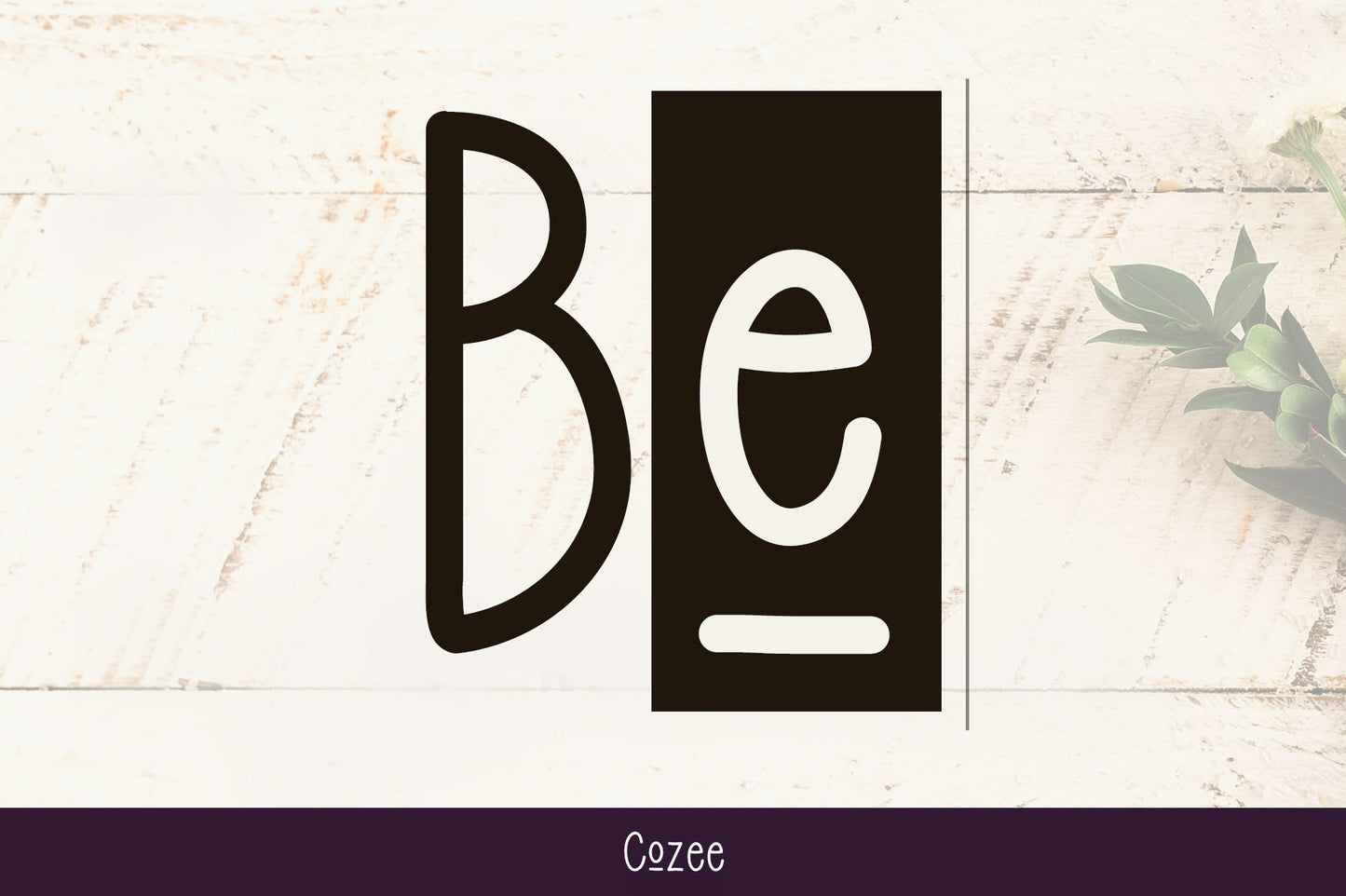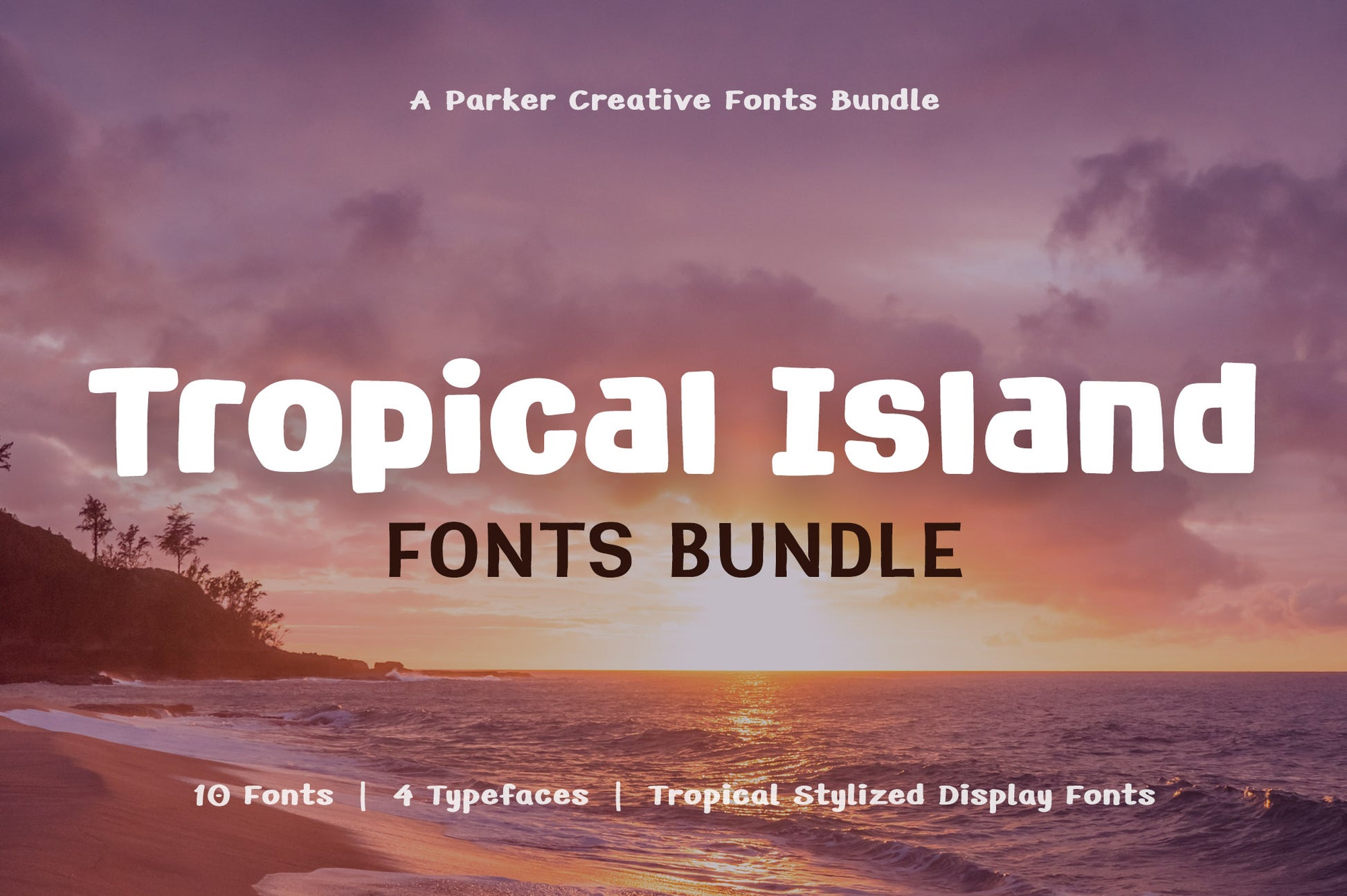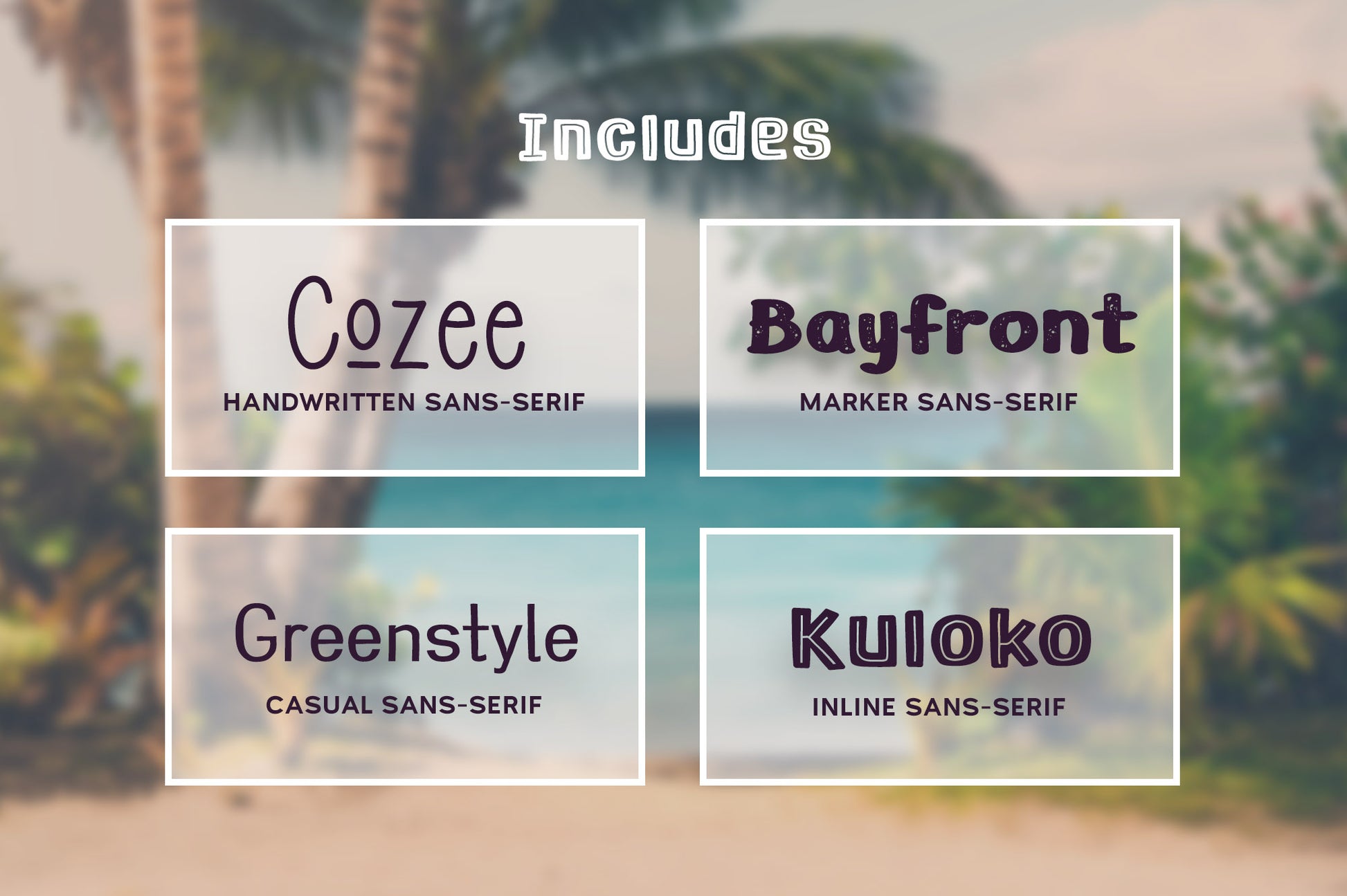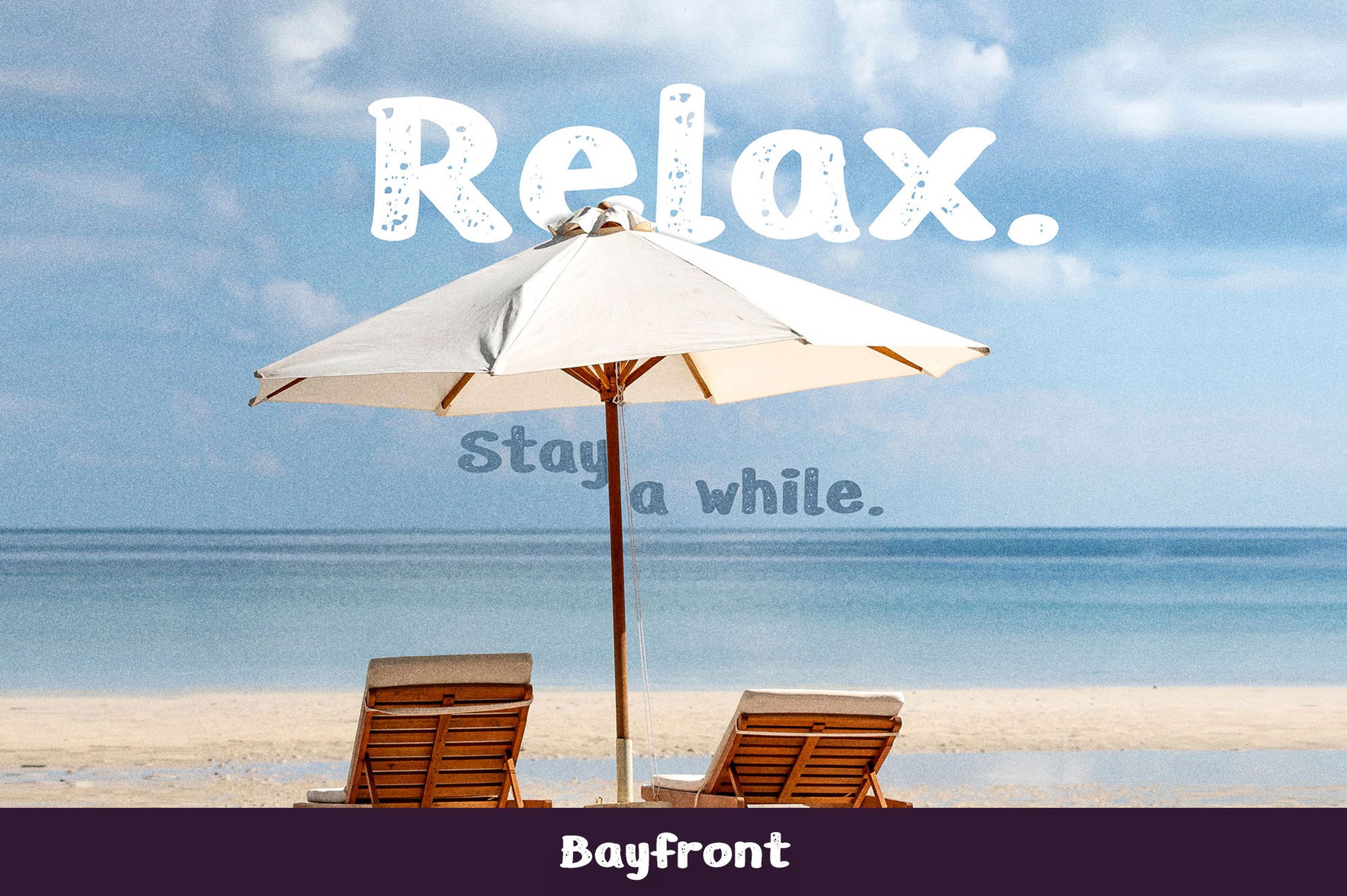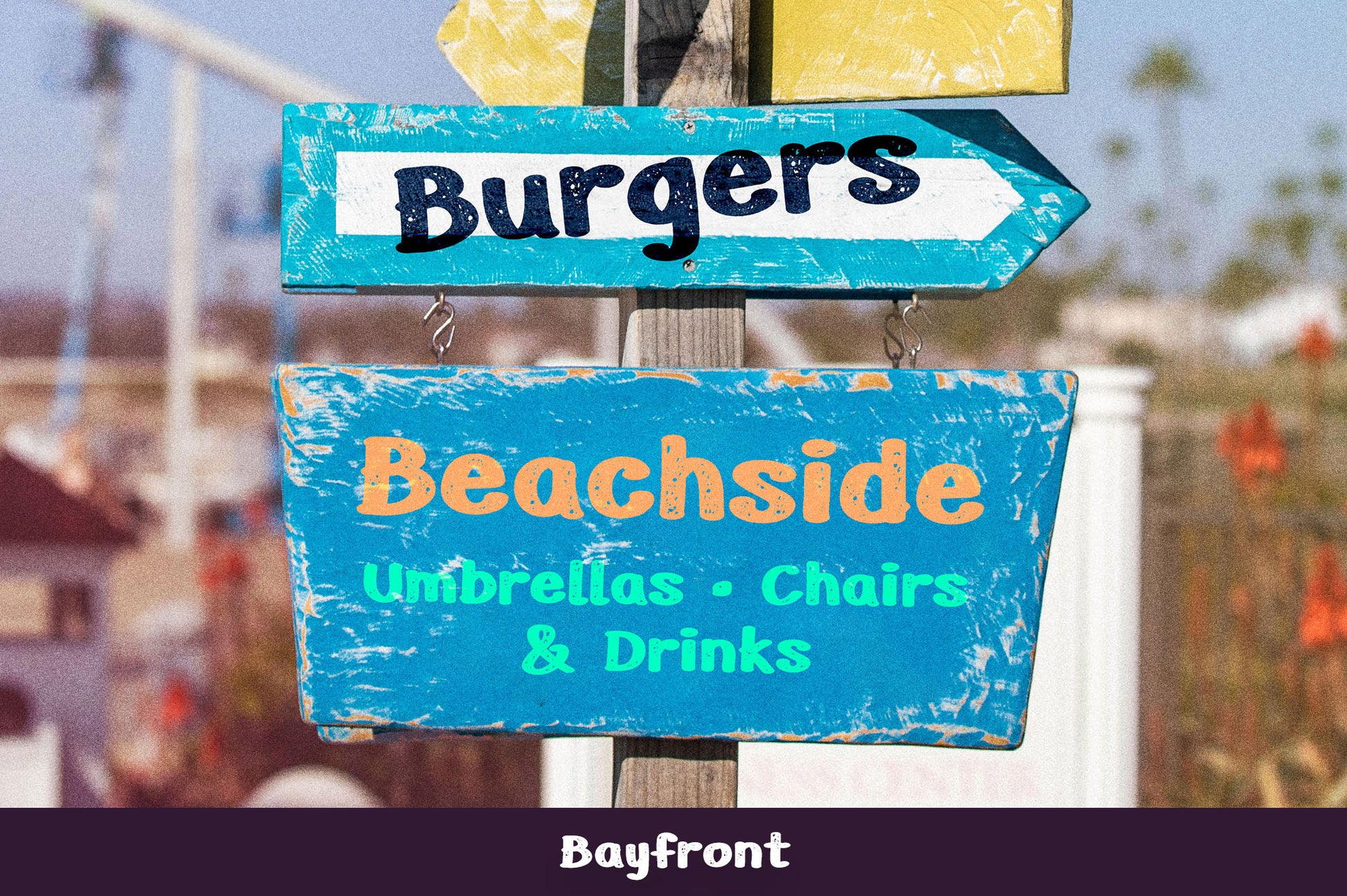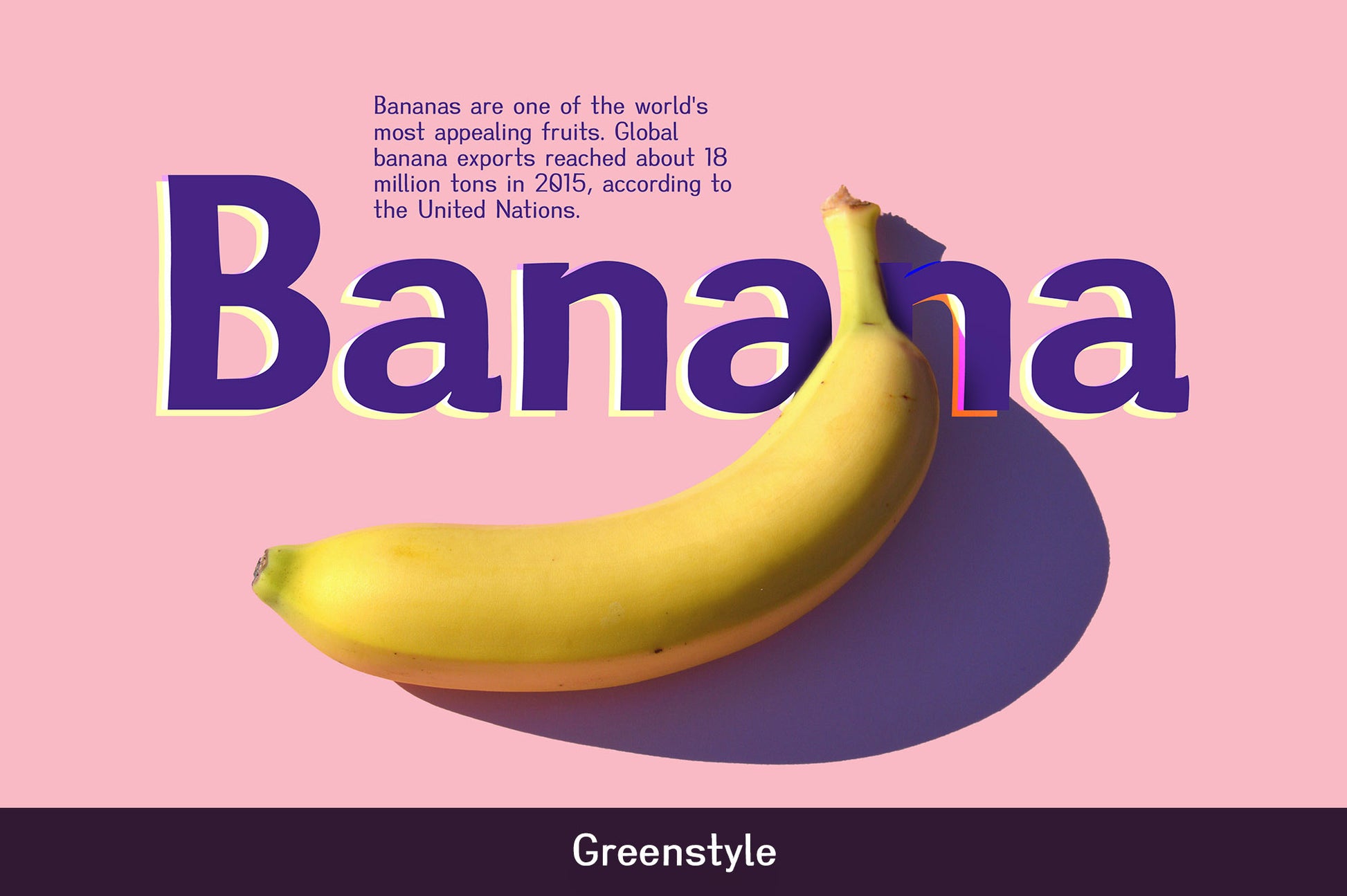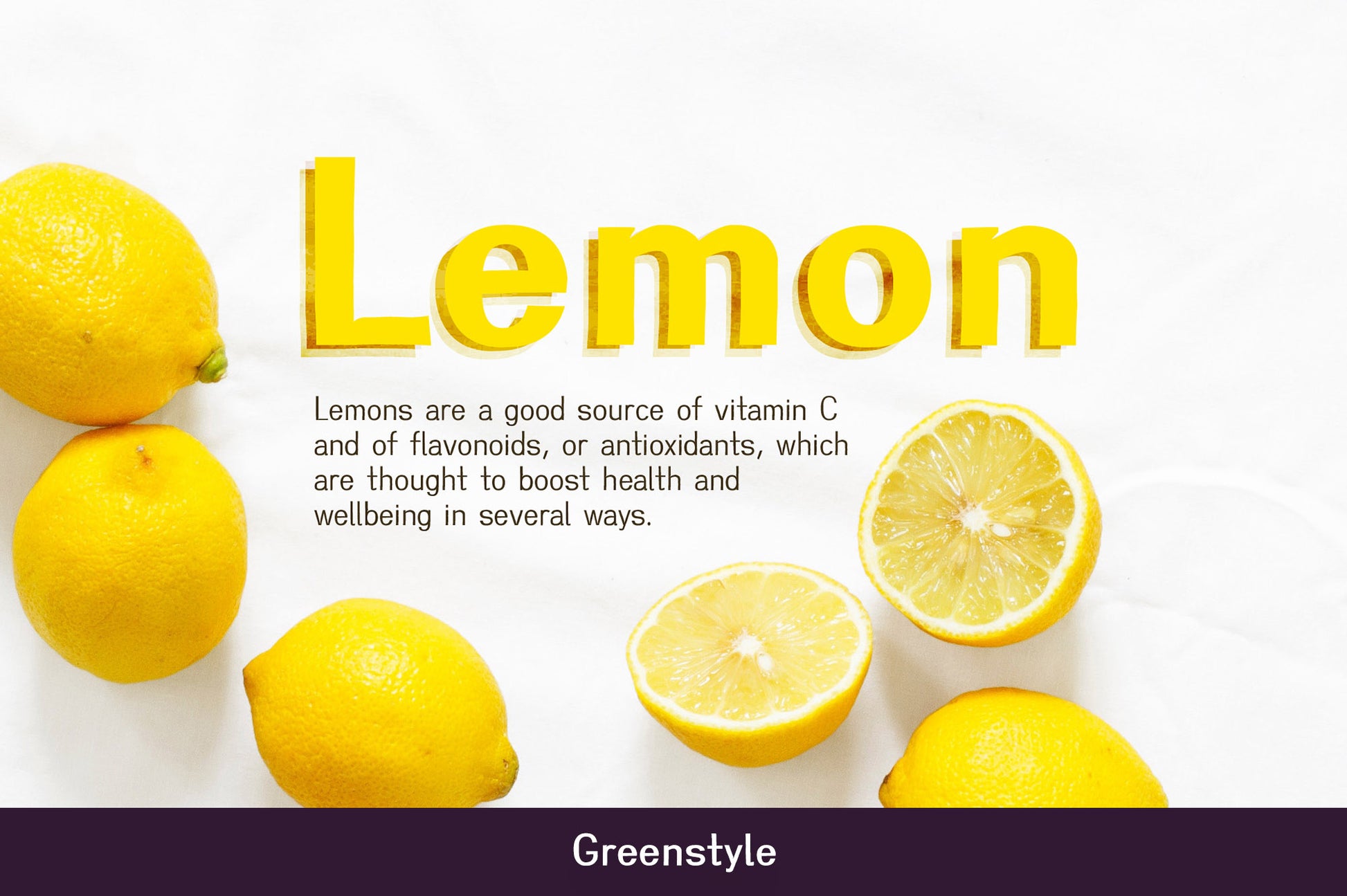
Tropical Island Vibes Font Bundle
Create original tropical themed designs with a variety of island inspired typefaces, exclusively made by Parker Creative.
Cozee - This modern condensed sans serif is fun and skinny - ideal for creating minimalist illustrations, branding projects, and so much more! Add Cozee instantly brings a friendly vibe to your designs.
Bayfront - Designed to emulate the casual look of marker writing, Bayfront also takes to the beach with a special 'sandy' version which features large distressed markings and imperfections.
Greenstyle - This typeface's natural handwriting delivers casual hints of character and rustic style. With 5 font weights, Greenstyle enables a lot of creative versatility in your designs.
Kuloko - Kuloko's funky look is sure to capture attention in headlines on websites, social media graphics, logos, branding and so much more! Kuloko also features a beautiful inline version.